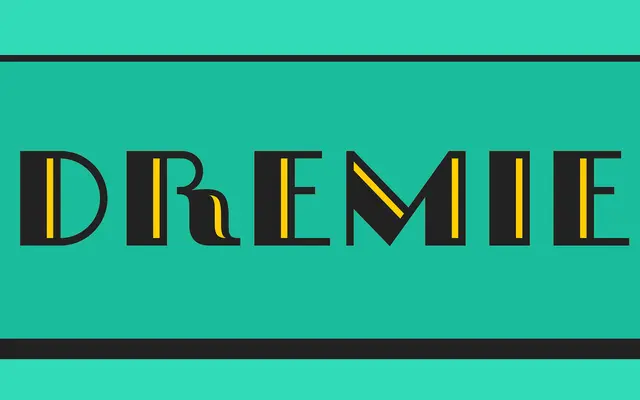
A geometric Art Deco display face with crisp edges and Open and Fill layering styles for colour work.
Built around simple geometric forms in the Art Deco tradition, Dremie is designed for titling and display use where clean, hard-edged letterforms are needed. The family includes Open and Fill variants that can be stacked in layers to produce colour and depth effects without additional drawing. A straightforward choice for poster, packaging or headline work that calls for period-adjacent geometry.
Dremie is a display typeface in the Art Deco tradition, characterised by geometric construction, crisp edges and layering capability suited to titling rather than text.